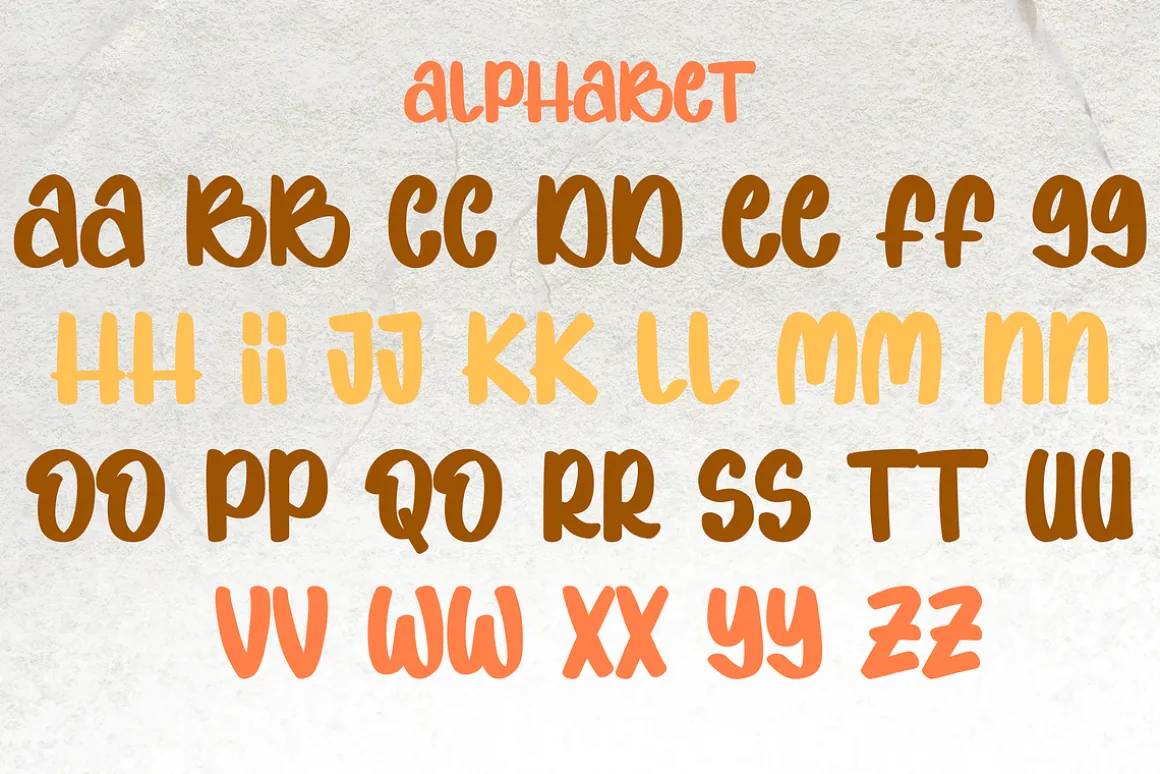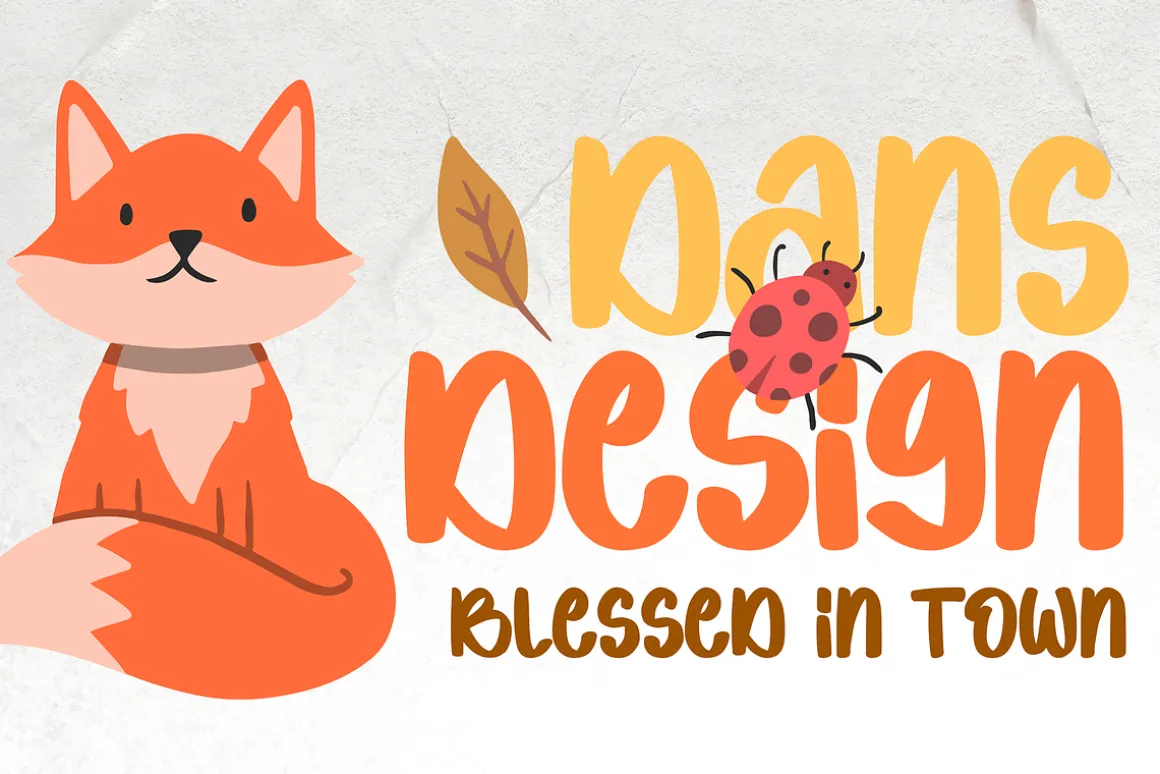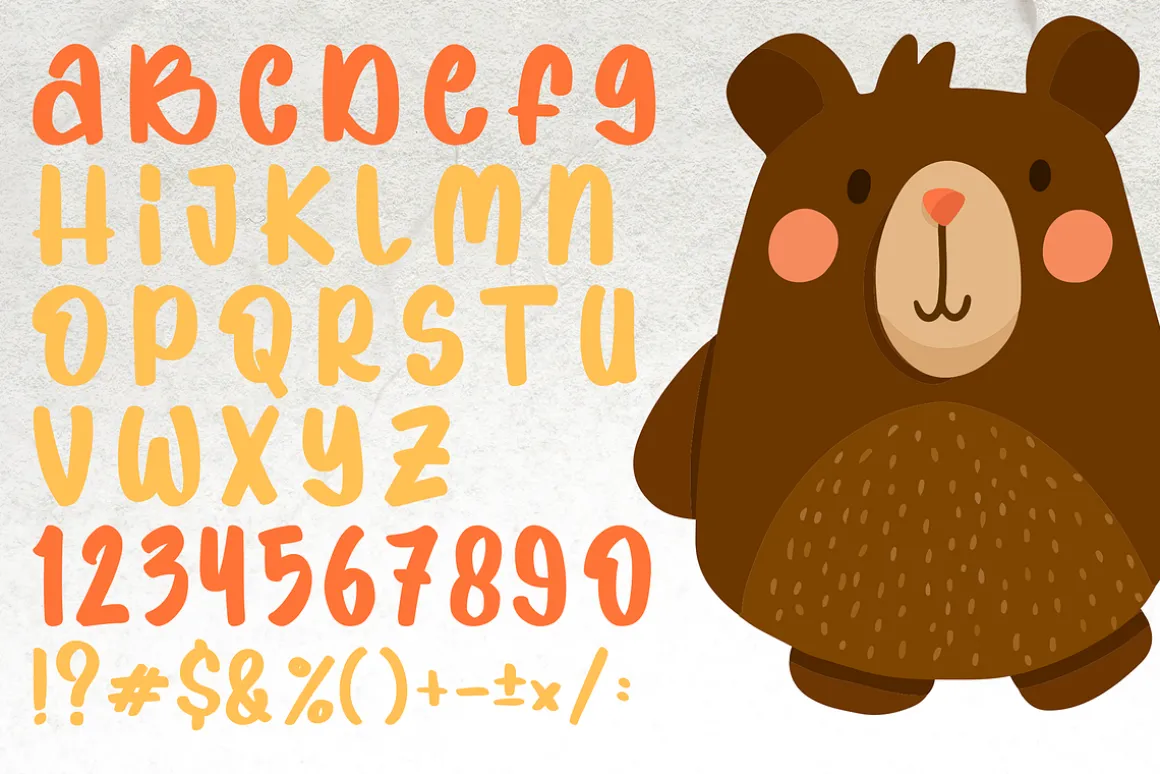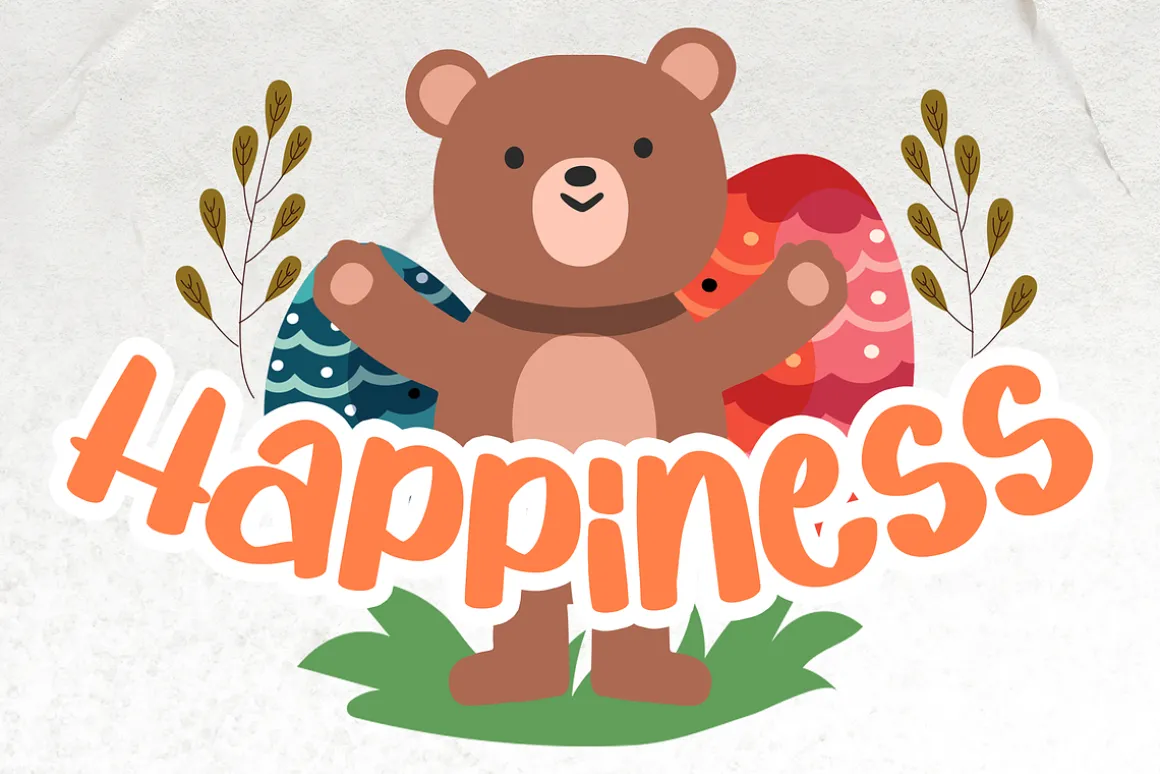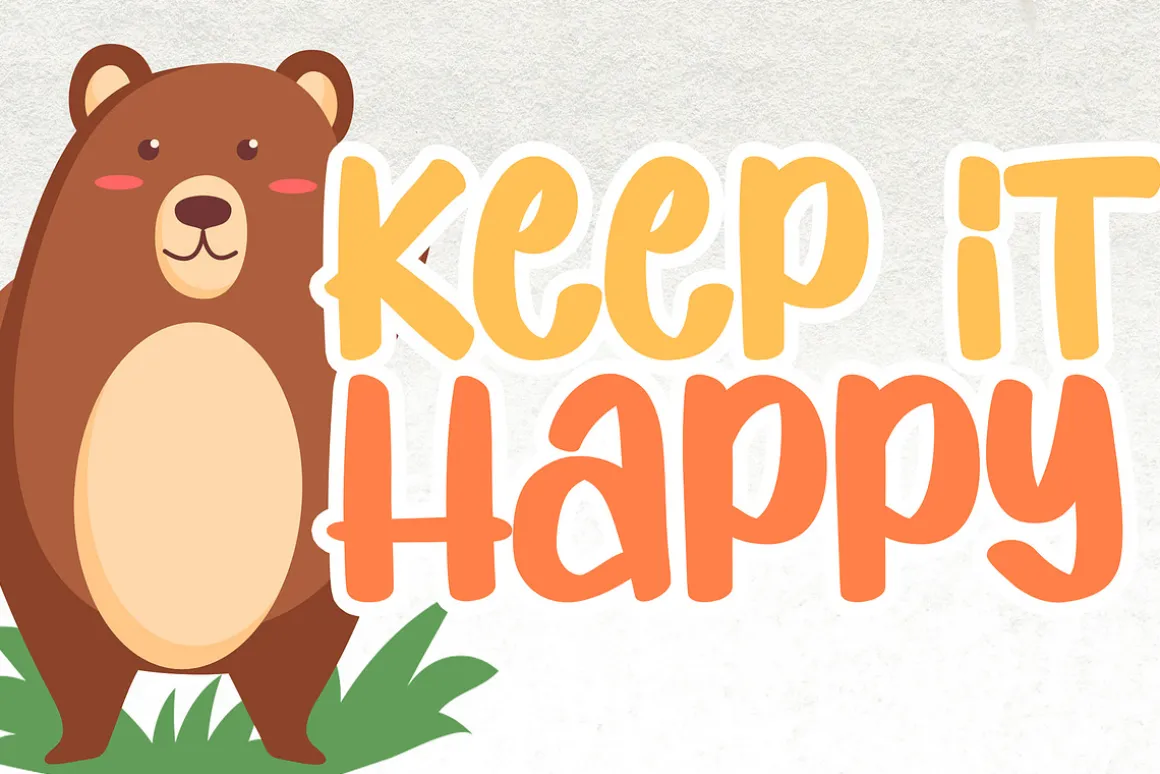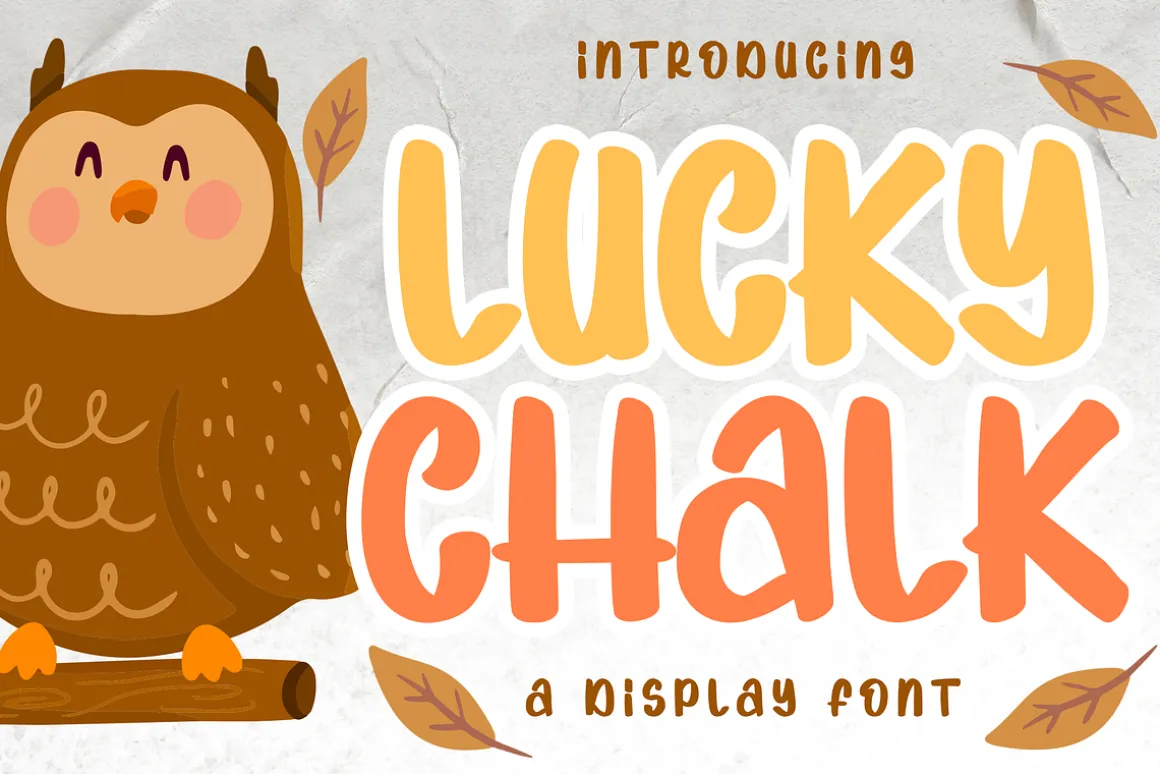
Lucky Chalk Marker Display Fontis a distinct, highly detailed. Marker Display Font.It would make a great choice for exquisite retro-urban designs, business branding, logos, Apparel designs, and more.